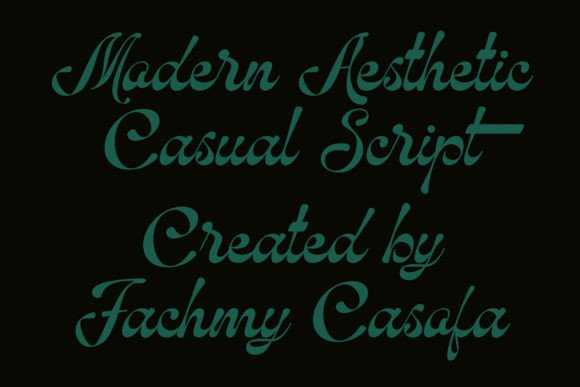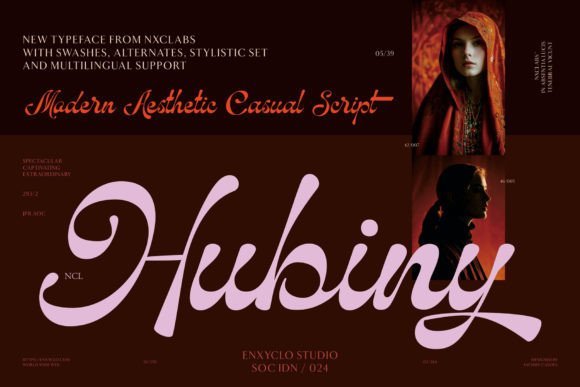
Introduction to Hubiny Font
Hubiny is a modern casual script display font.
Masterfully designed to become a true favorite, this font has the potential to bring each of your creative ideas to the highest level It was purposely crafted to be used in large point sizes, although it doesn’t lose its magic in small point sizes.